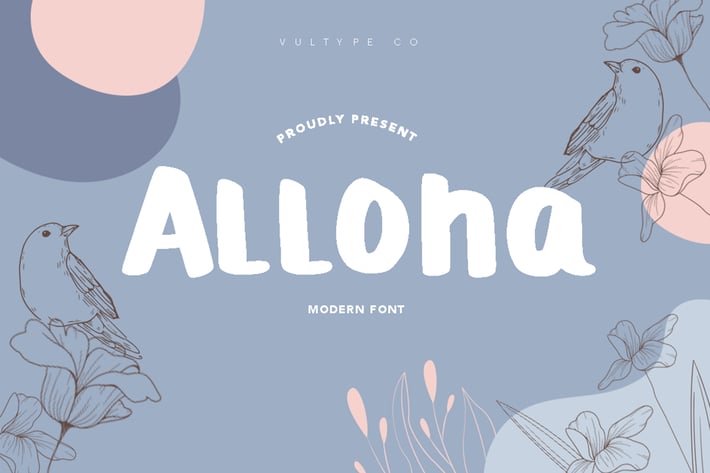
Alloha - Summer Font
Introducing Alloha - Playful Sumemr Display Font
Alloha is a fun display font. Playful and fresh, this font will be a hit for each of your summer projects!
Unique letterforms